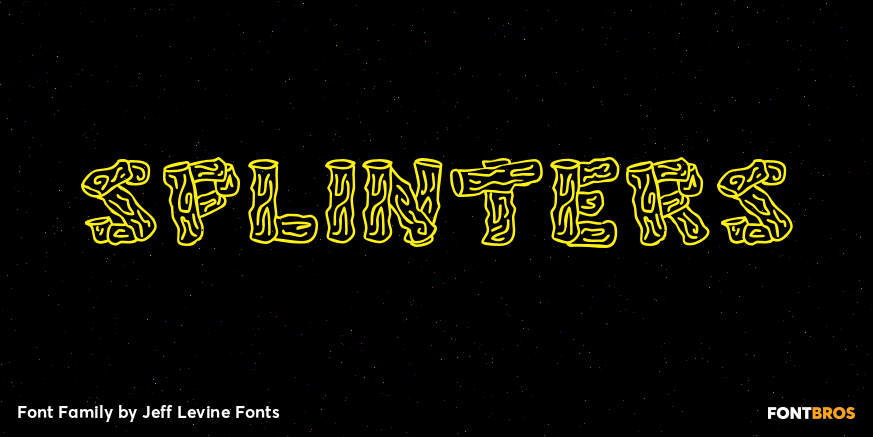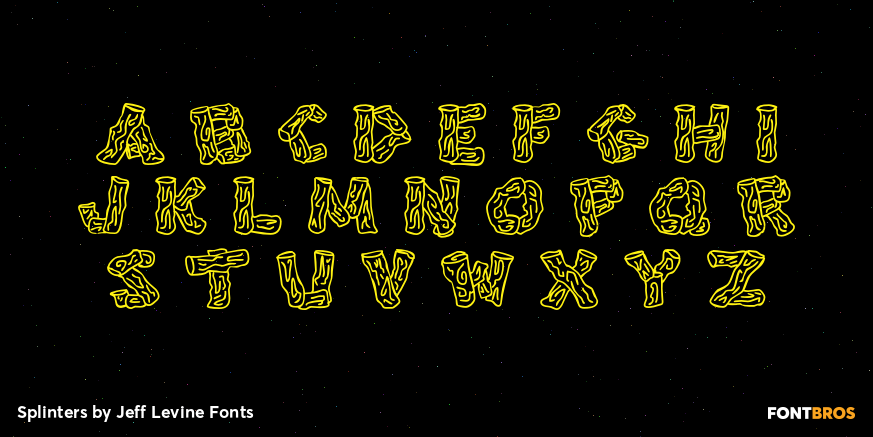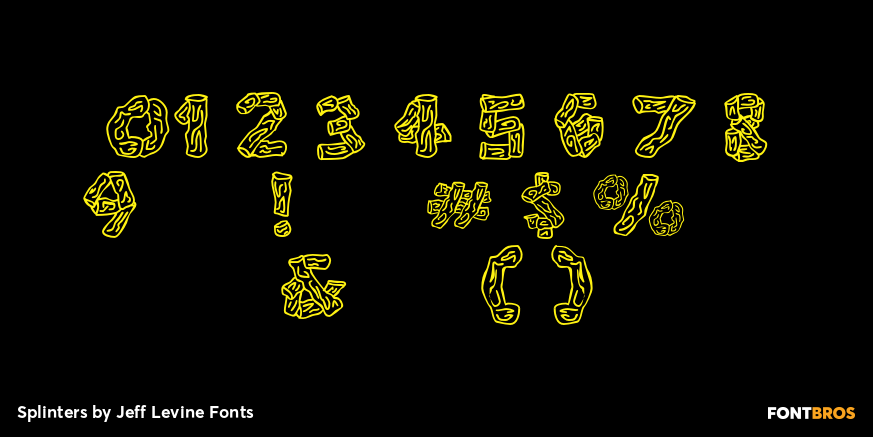
Splinters
Splinters JNL is a fun, hand-drawn font emulating letters formed from pieces of wood. Use at larger point sizes for best results. Please note: There is no kerning and a limited character set.
Splinters JNL Regular by Jeff Levine Fonts